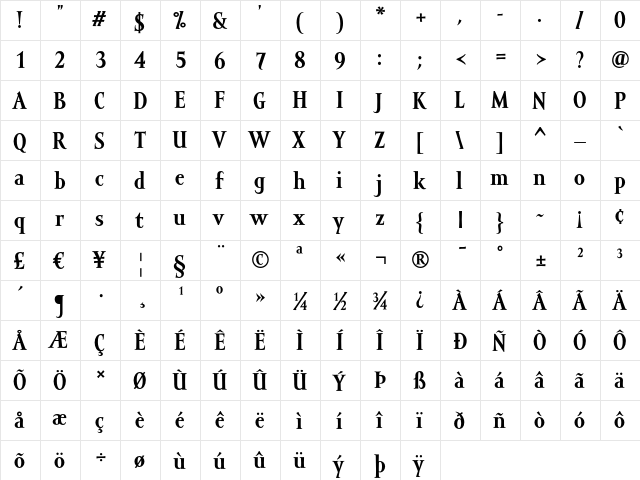
Mramor Text Bold
Design Context for Mramor Text Typeface
Mramor Text offers clean, dependable letterforms without strong stylistic allegiance, making it a practical choice for designers who need flexibility. The heavy weight commands attention and anchors typographic hierarchies.